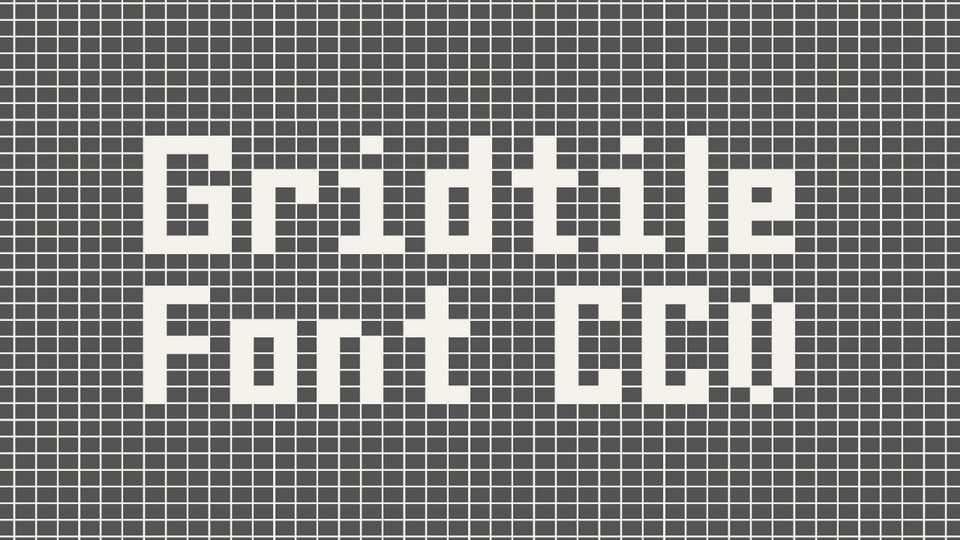
Download Gridtile font, a pixel-perfect typeface designed with a clean, grid-based structure, capturing the essence of retro video games and digital aesthetics.